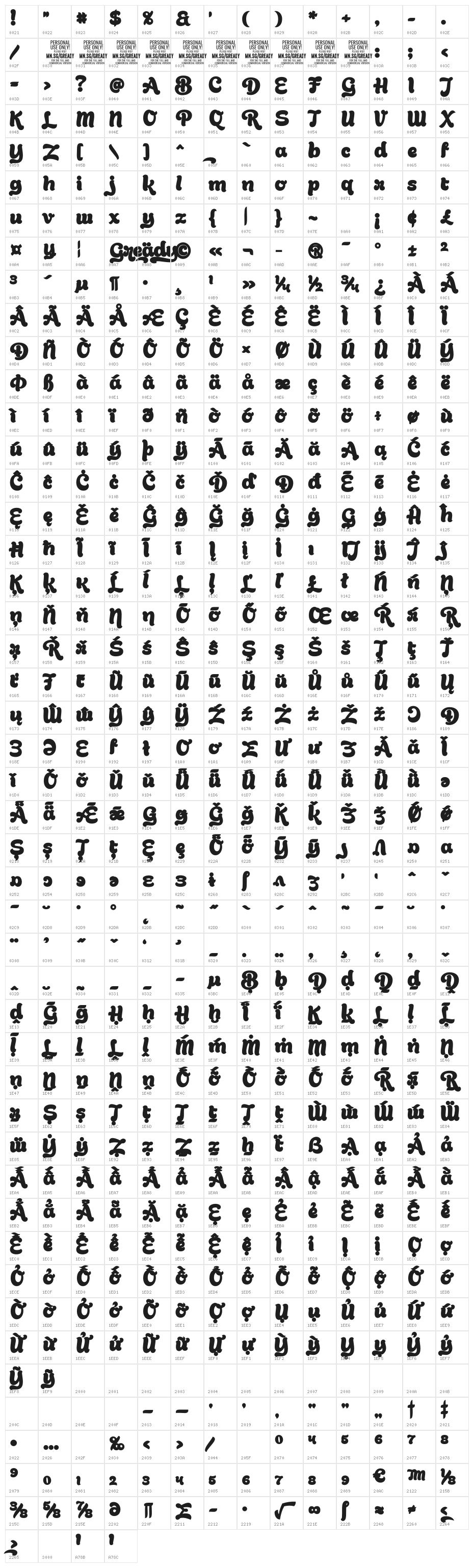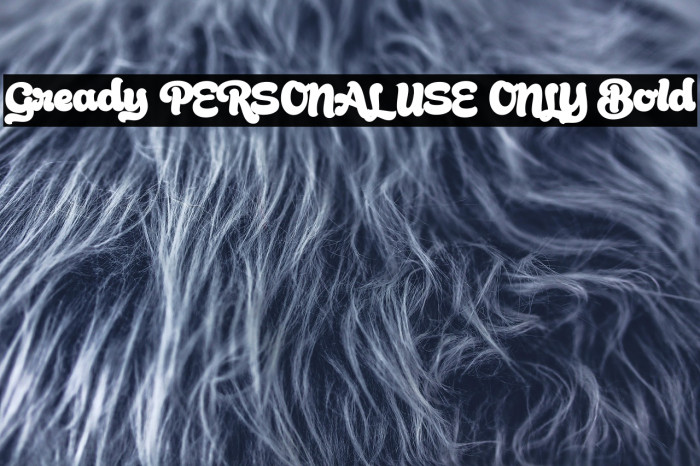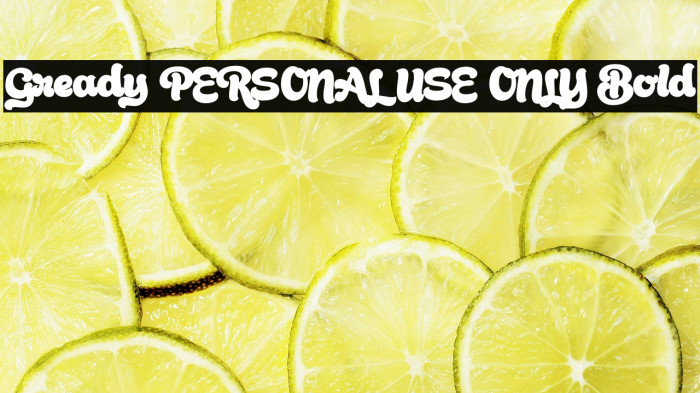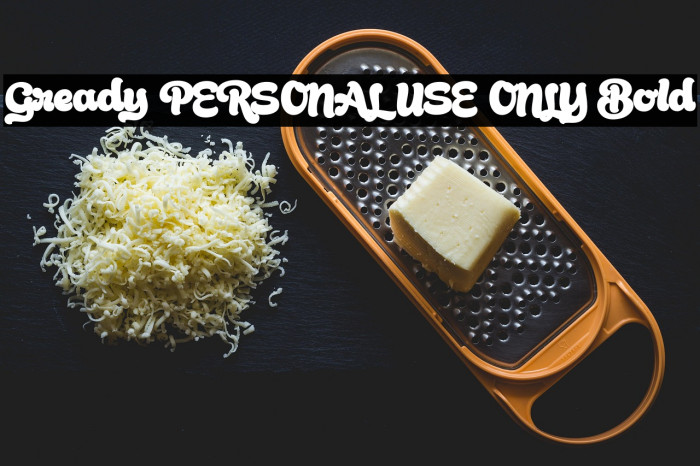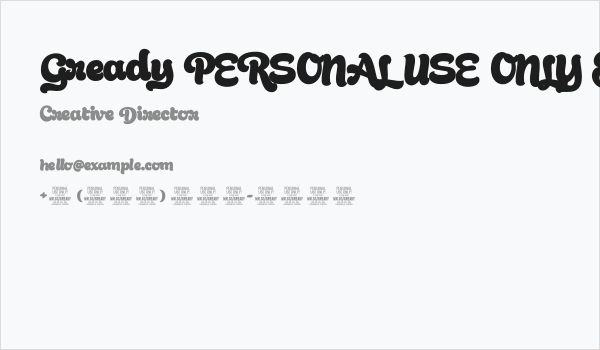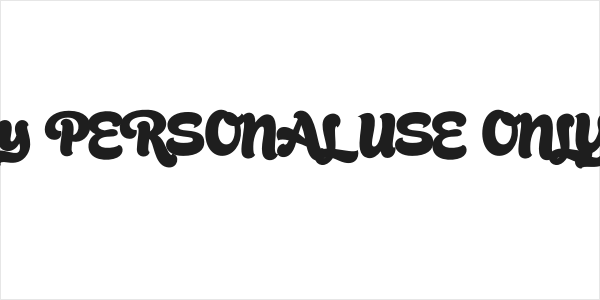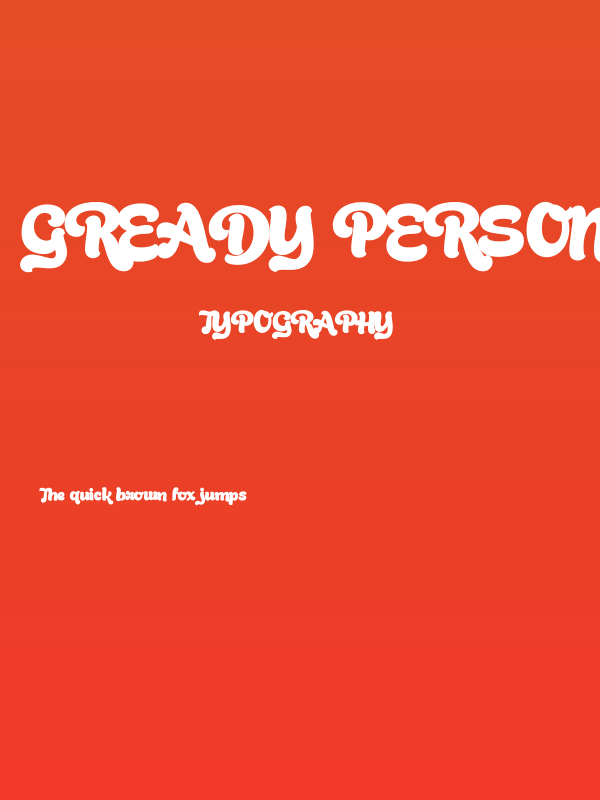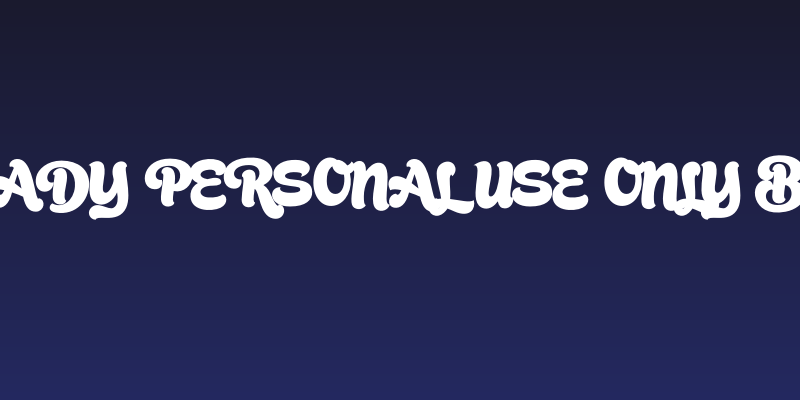
Gready PERSONAL USE ONLY Bold Font
Gready PERSONAL USE ONLY Bold Description
This font features a bold, playful style with thick, rounded strokes that give it a bubbly and energetic appearance. The characters are highly stylized, with exaggerated curves and a sense of movement, making it ideal for eye-catching designs. The uppercase and lowercase letters maintain a consistent weight, contributing to a cohesive look. The font's whimsical nature is further emphasized by its unique approach to character shapes, offering a sense of fun and creativity. The special characters and numbers are designed to match the overall aesthetic, ensuring a harmonious visual experience.